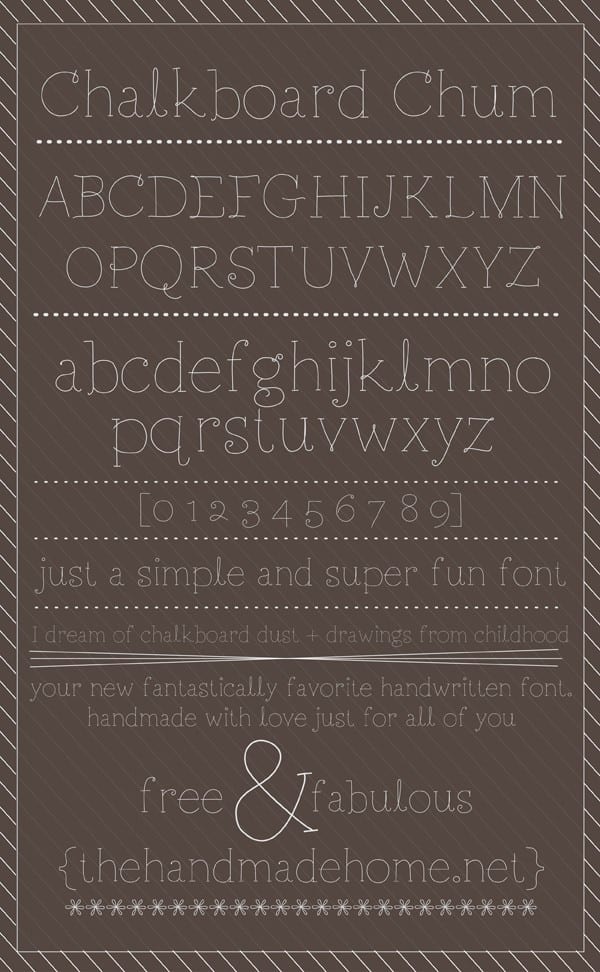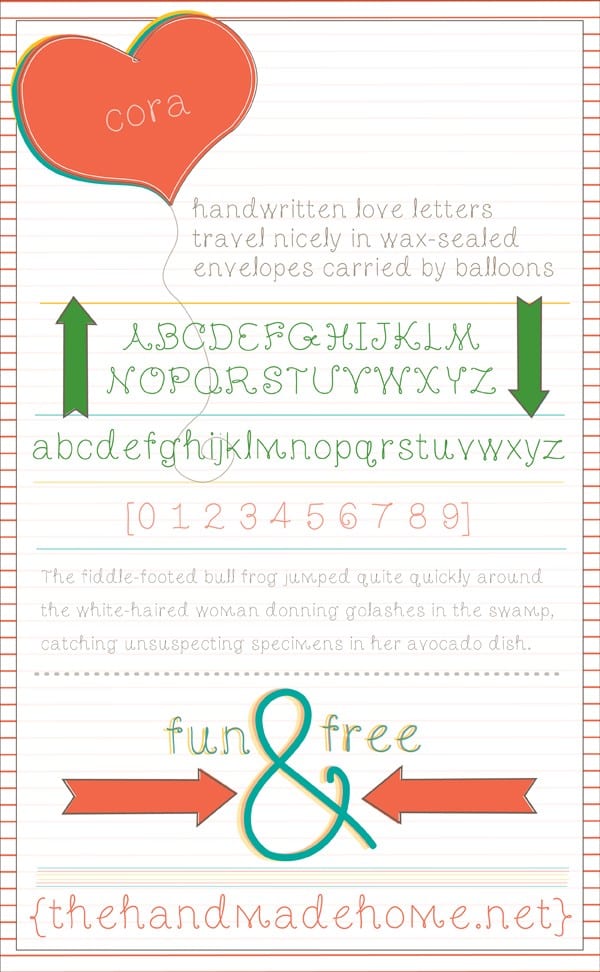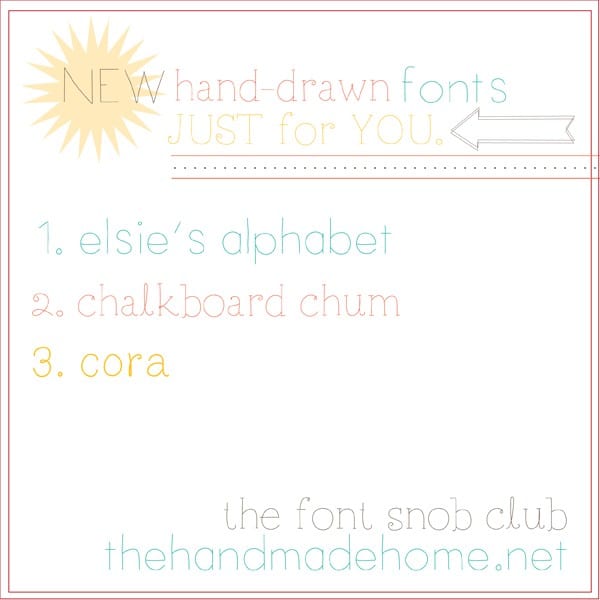
So today, I thought we’d try something a little different from the norm. I made a few little handwriting fonts. I really am too much of a snob for this, because one day I would love to invest in a program and design real fonts. Ain’t nobody got time for that. I have children to feed, sleep training to fail at, dog pee to clean, mirror balls to glue... you get the not so pretty picture. So consider this a fake font freebie. Just for fun. I didn’t really want to release anything poorly kerned into the www. It’s my responsibility as a font snob, after all.
You guys may be too big of a snob to try them. I understand.
Font snob problems.
But anyway, here you go. They’re actually in my handwriting. So type something to yourself, close your eyes, and pretend they’re love letters from me.
Here’s a few rules:
1. They must only be used in moderation.
2. Cora must never be used in all caps. EVER. Or Papyrus will sneak into your home and take your children. Font karma.
3. Still a better option than Comic Sans.